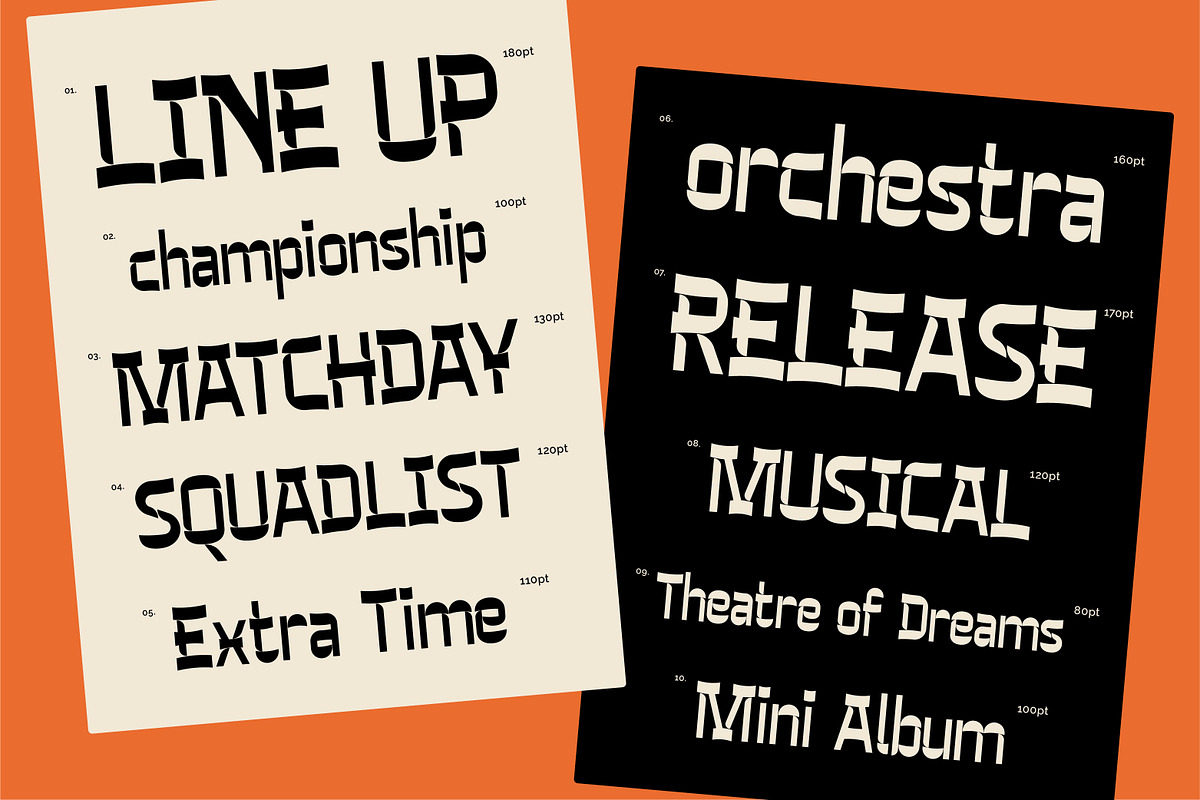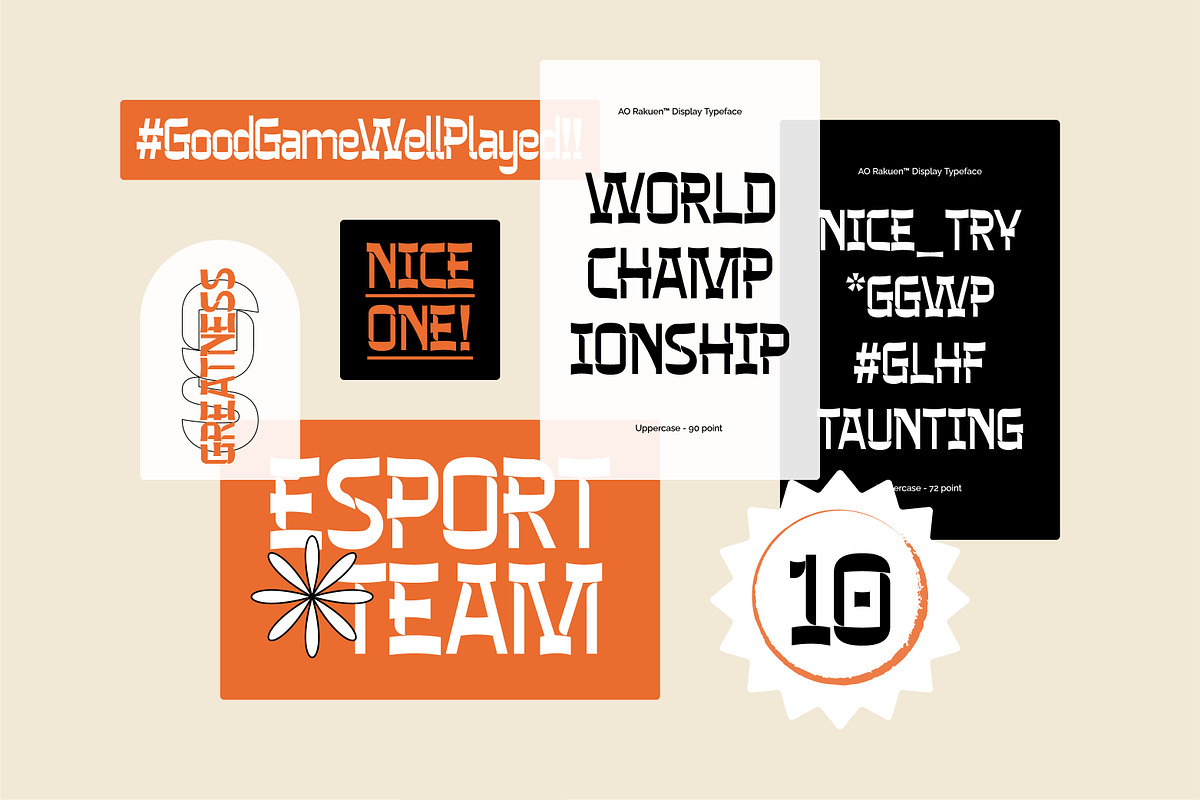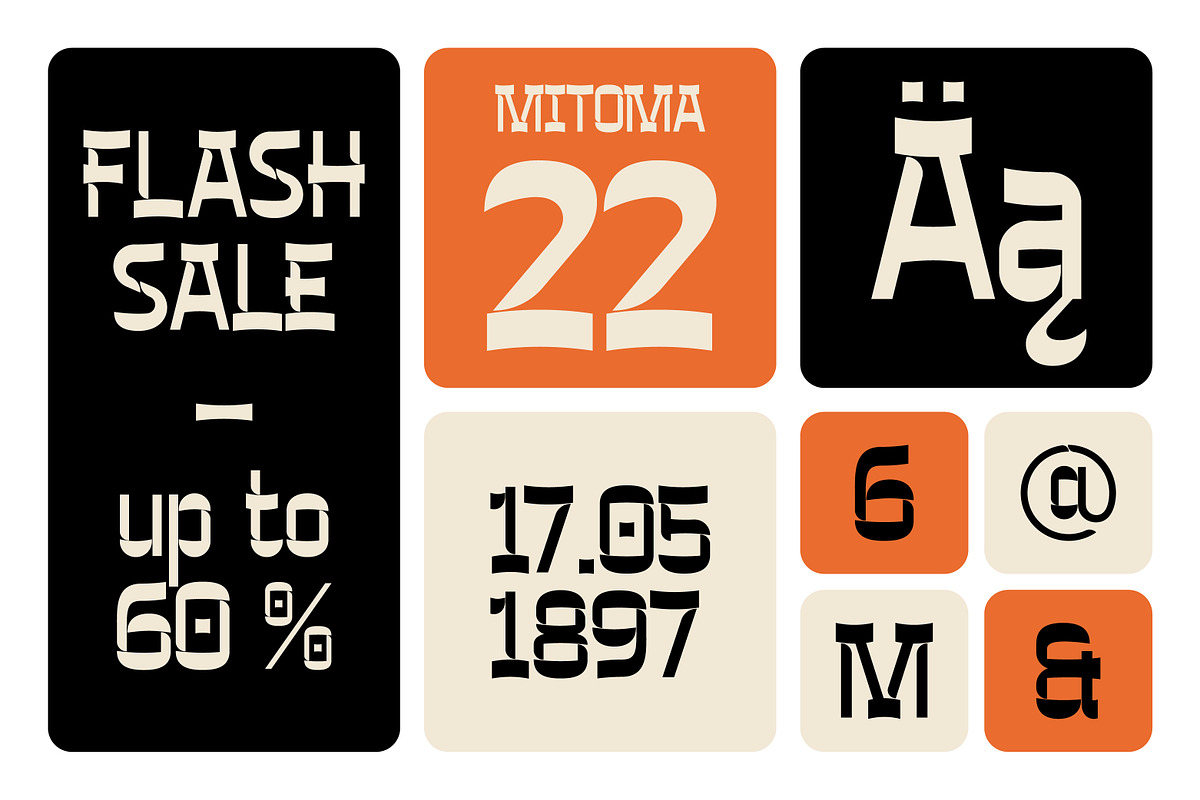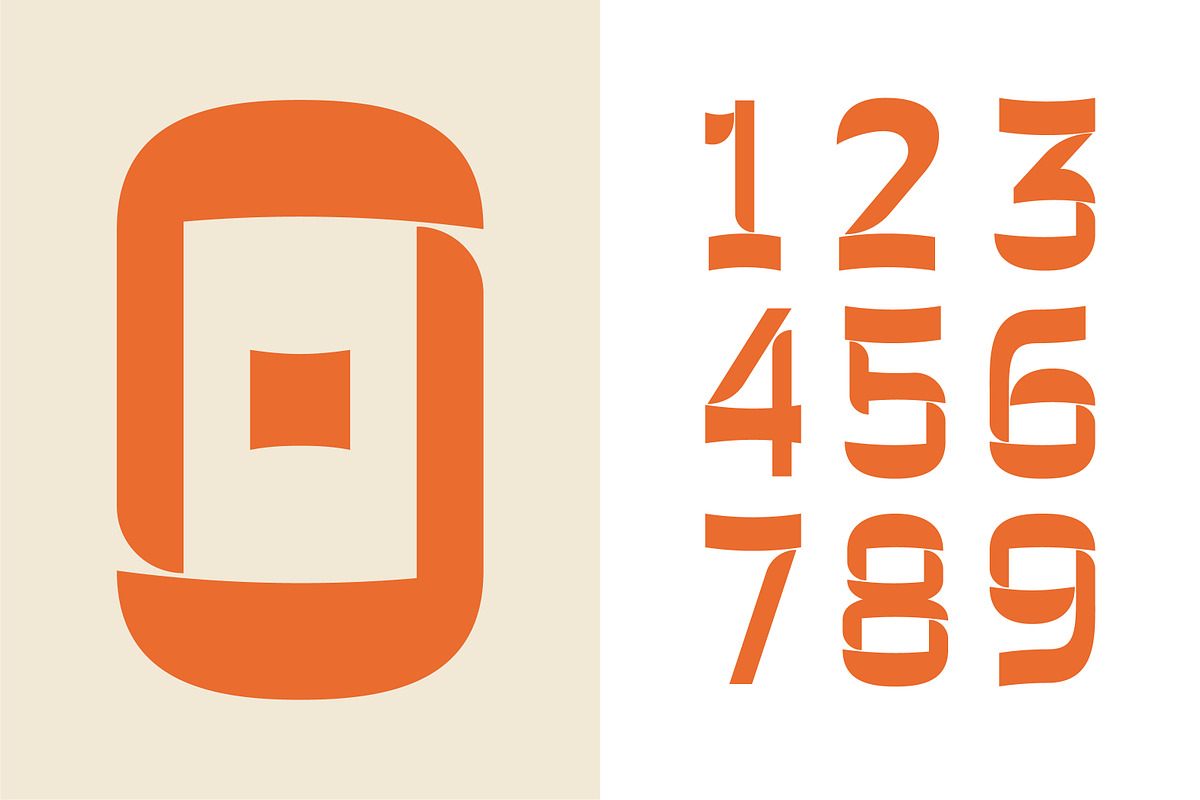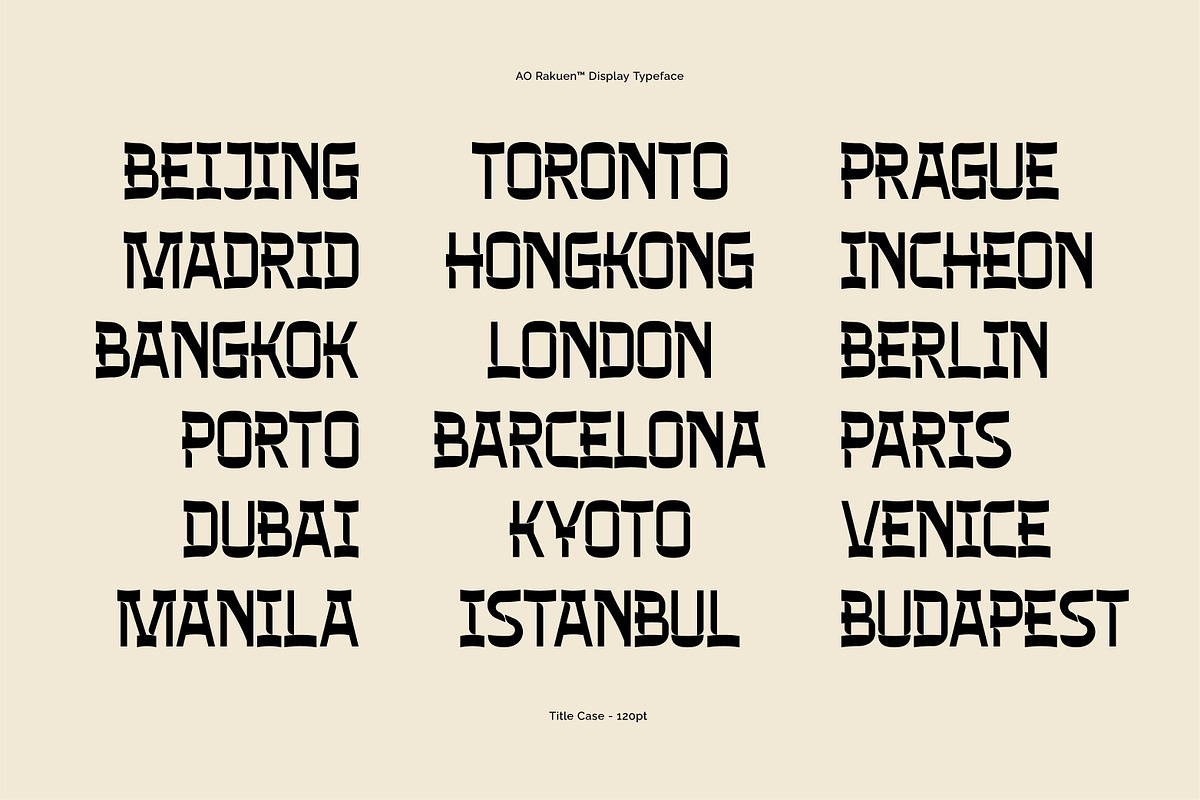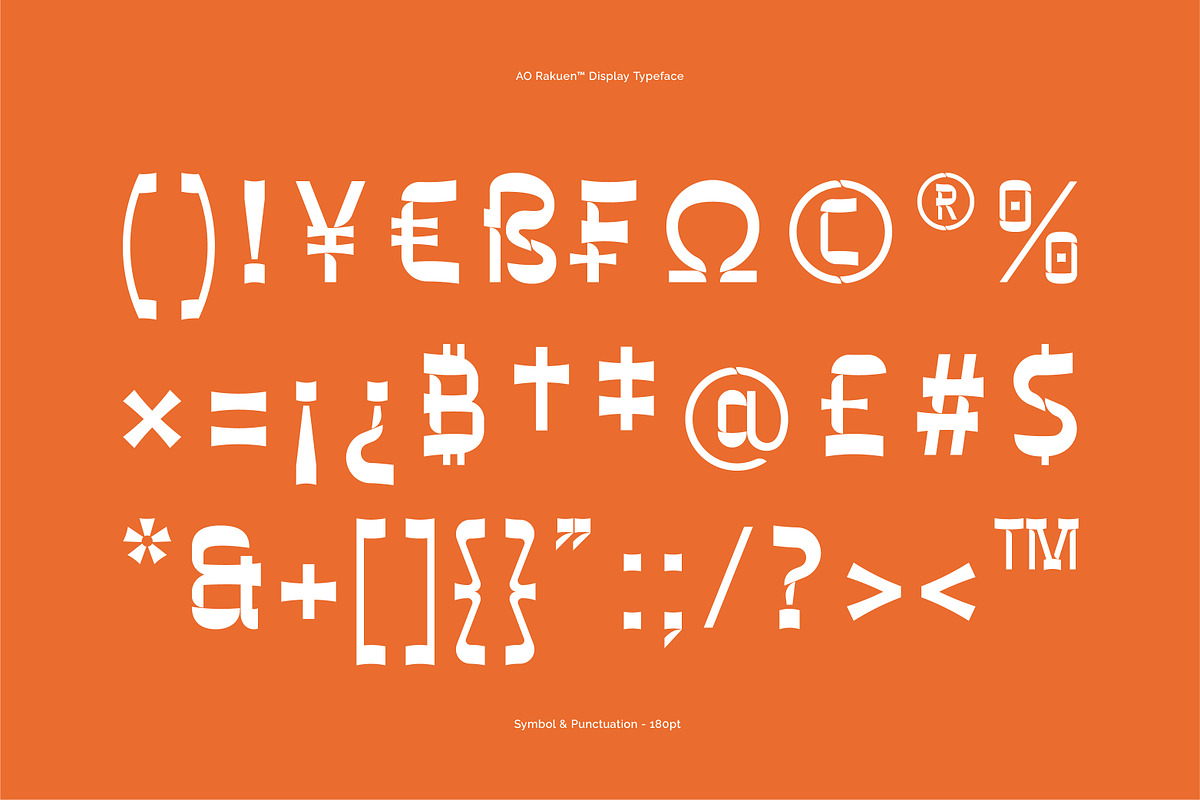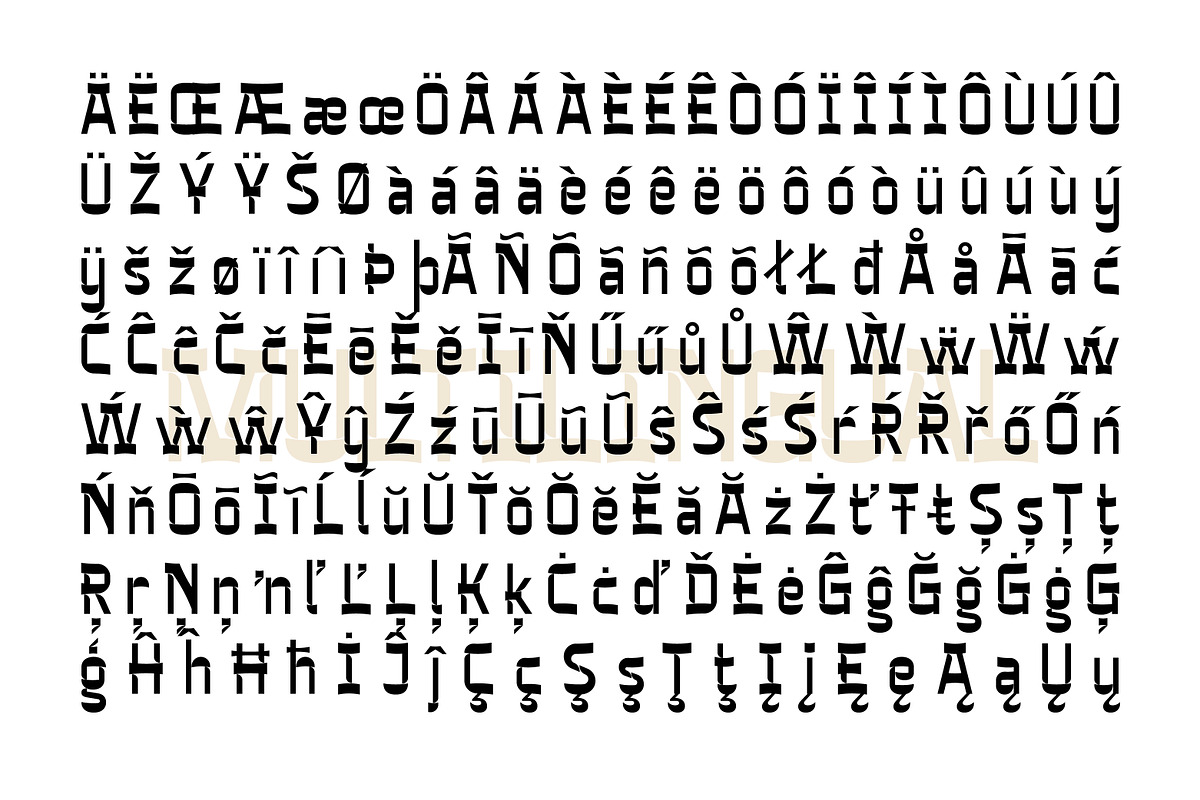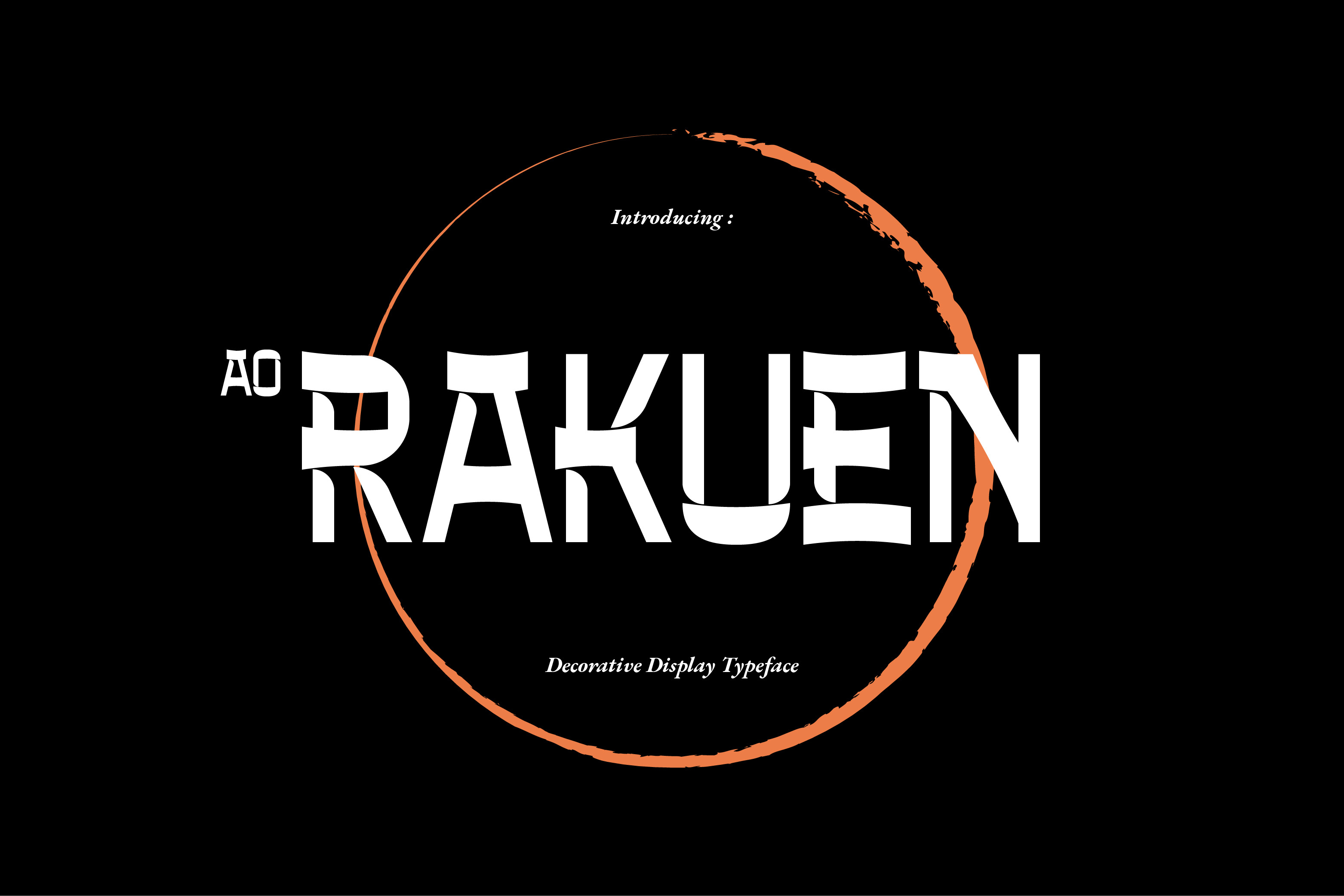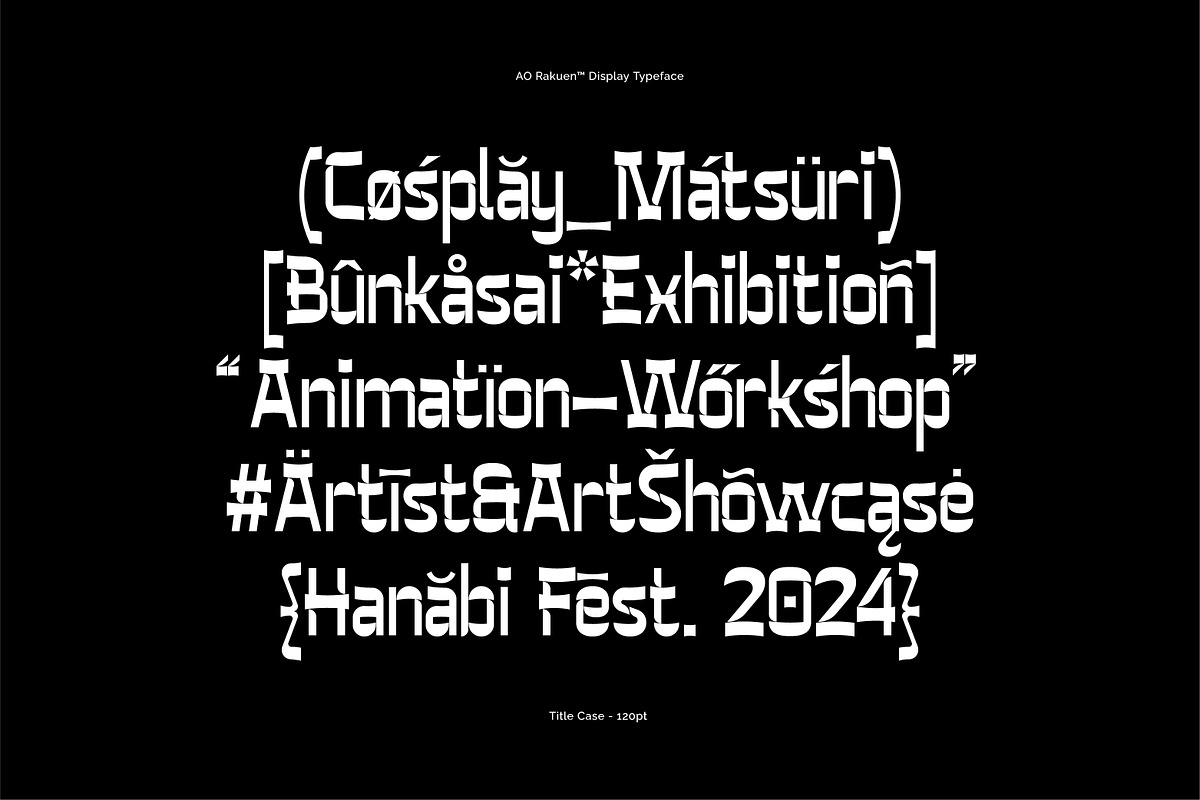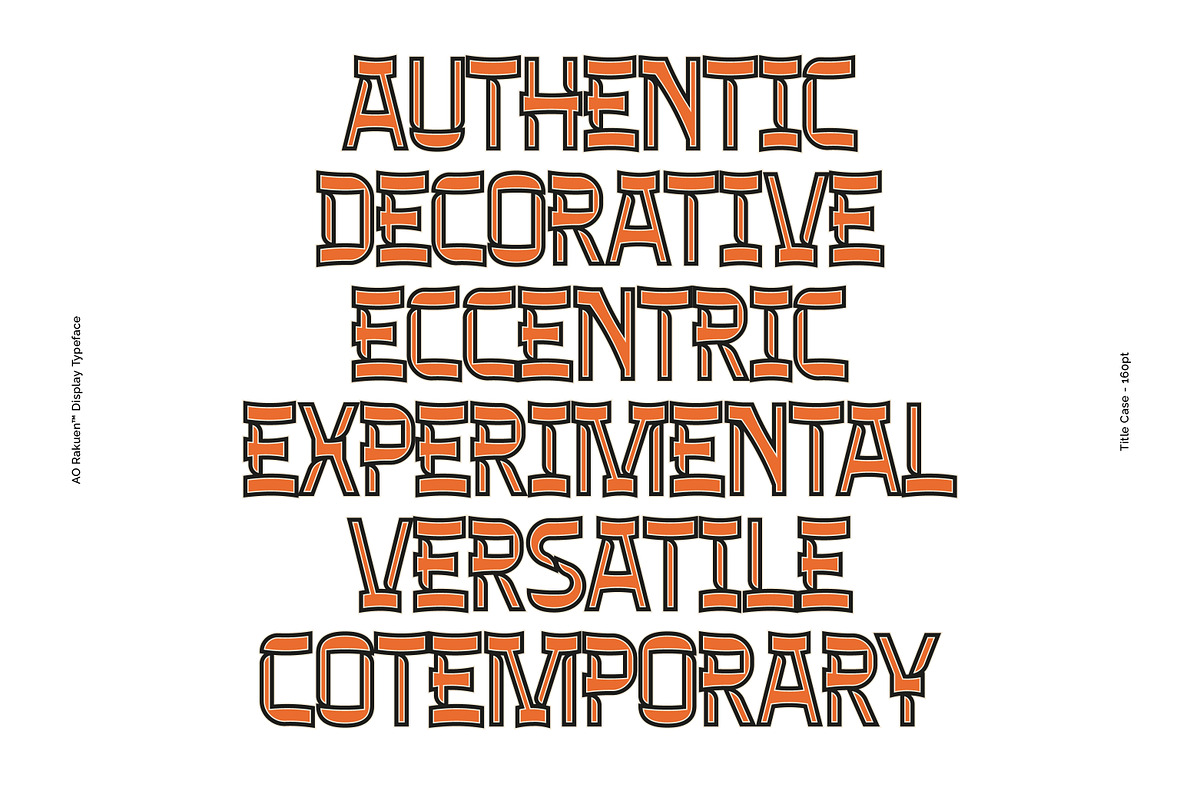
AO Rakuen - Decorative Typeface
The AO Rakuen font is an experimental of japanese typography styles that has been carefully crafted to create a unique look. featuried multilingual, alphabet letters, and alternates glyphs
Rakuen typeface is a typeface made mainly for headlines, titles, branding, logotypes, packaging, jersey name, editorial design and is well-suited for modern or vintage design.